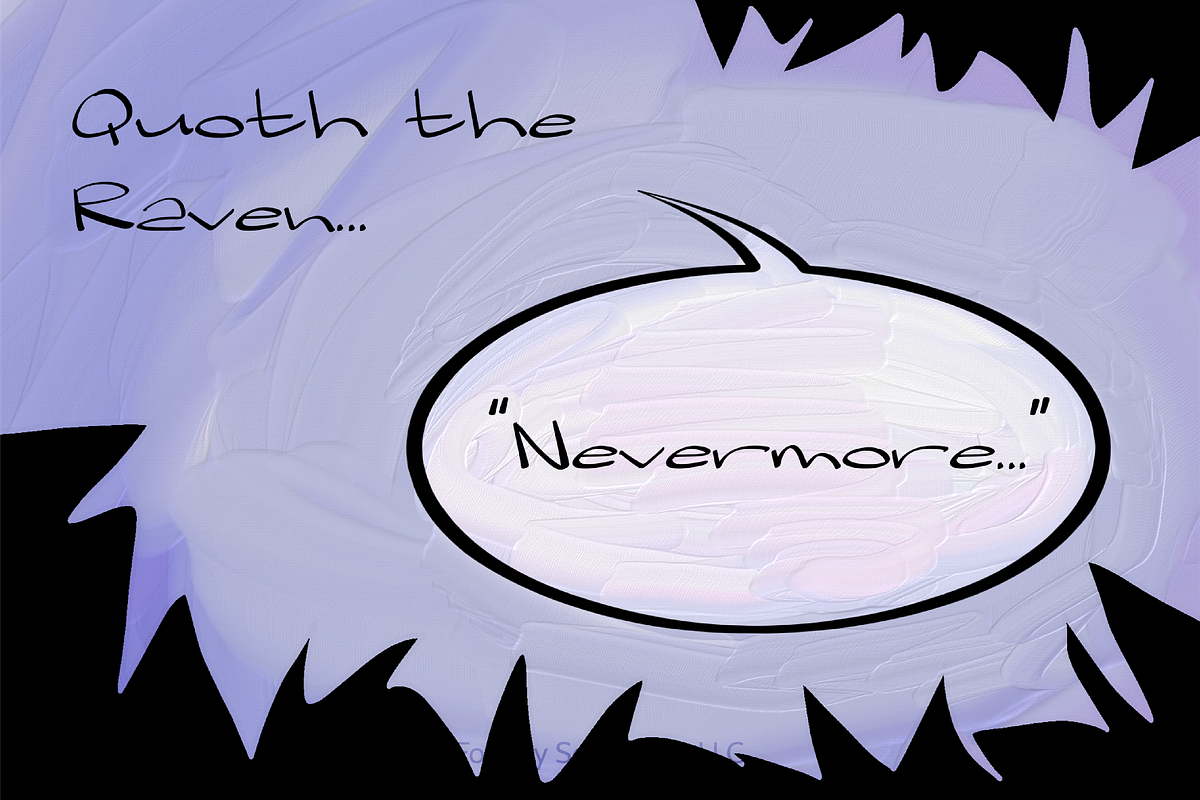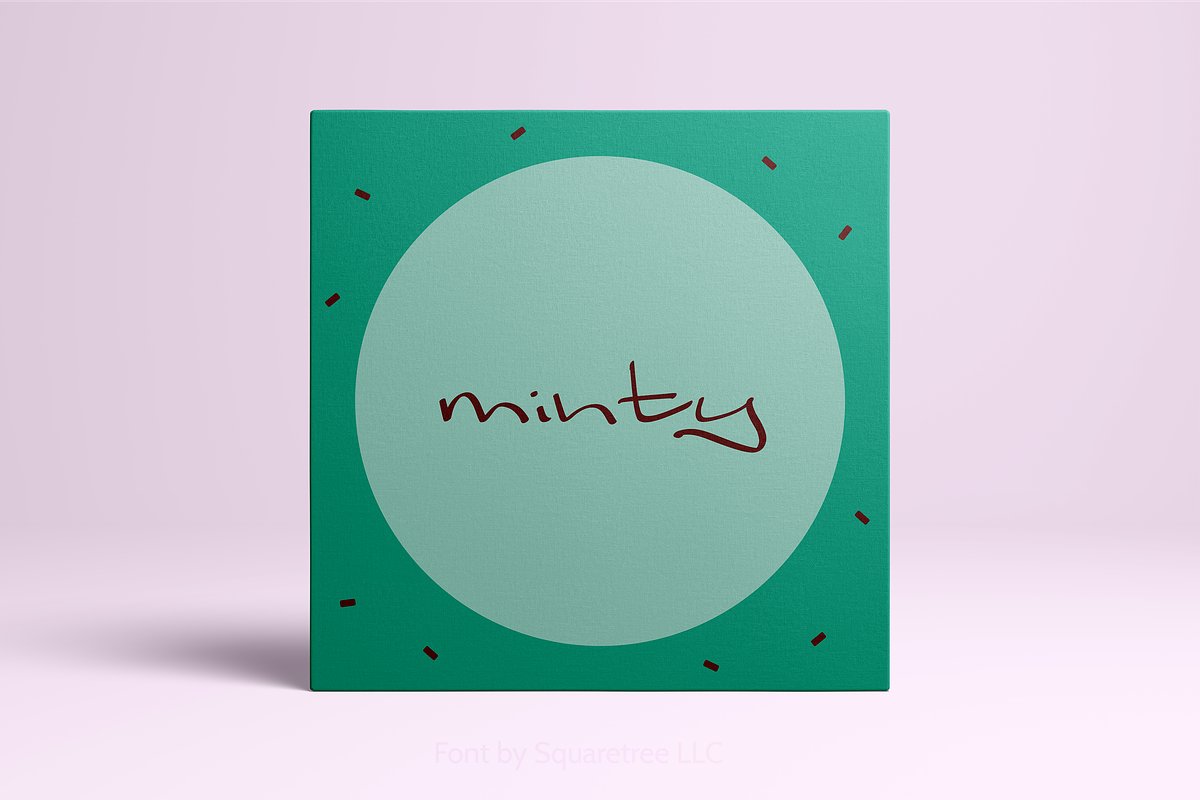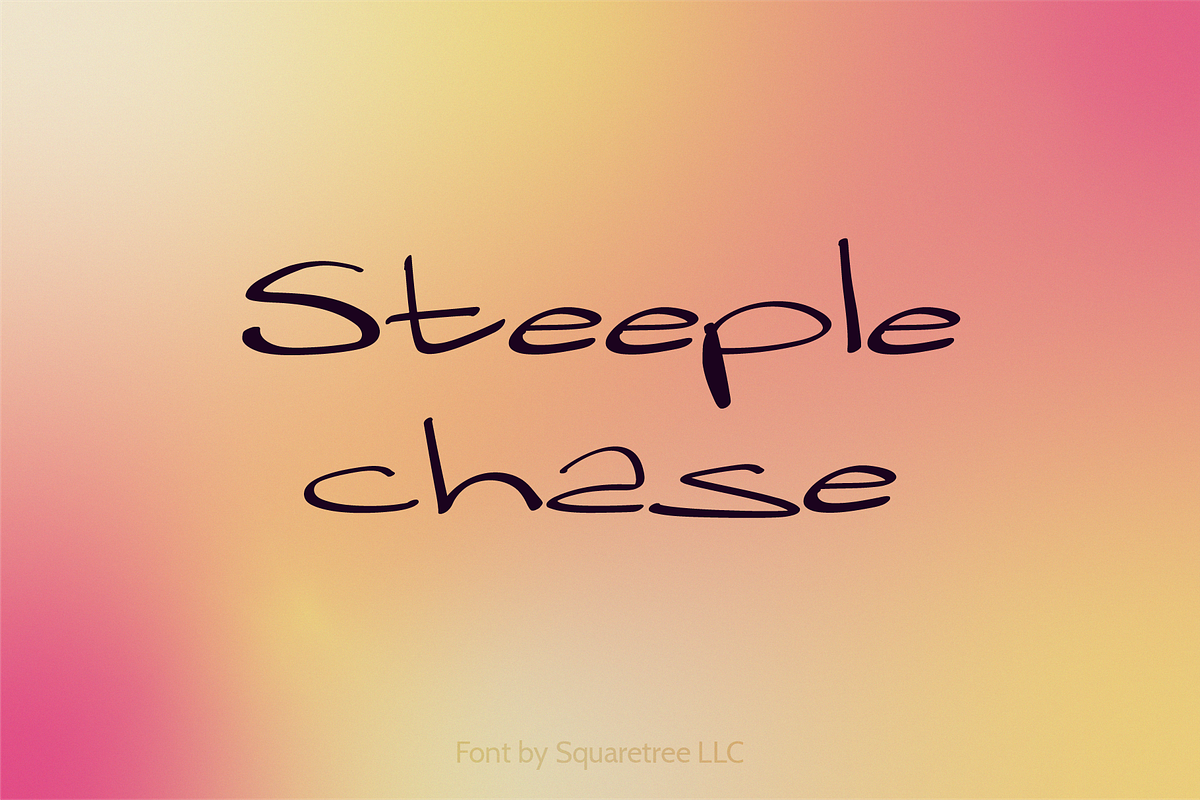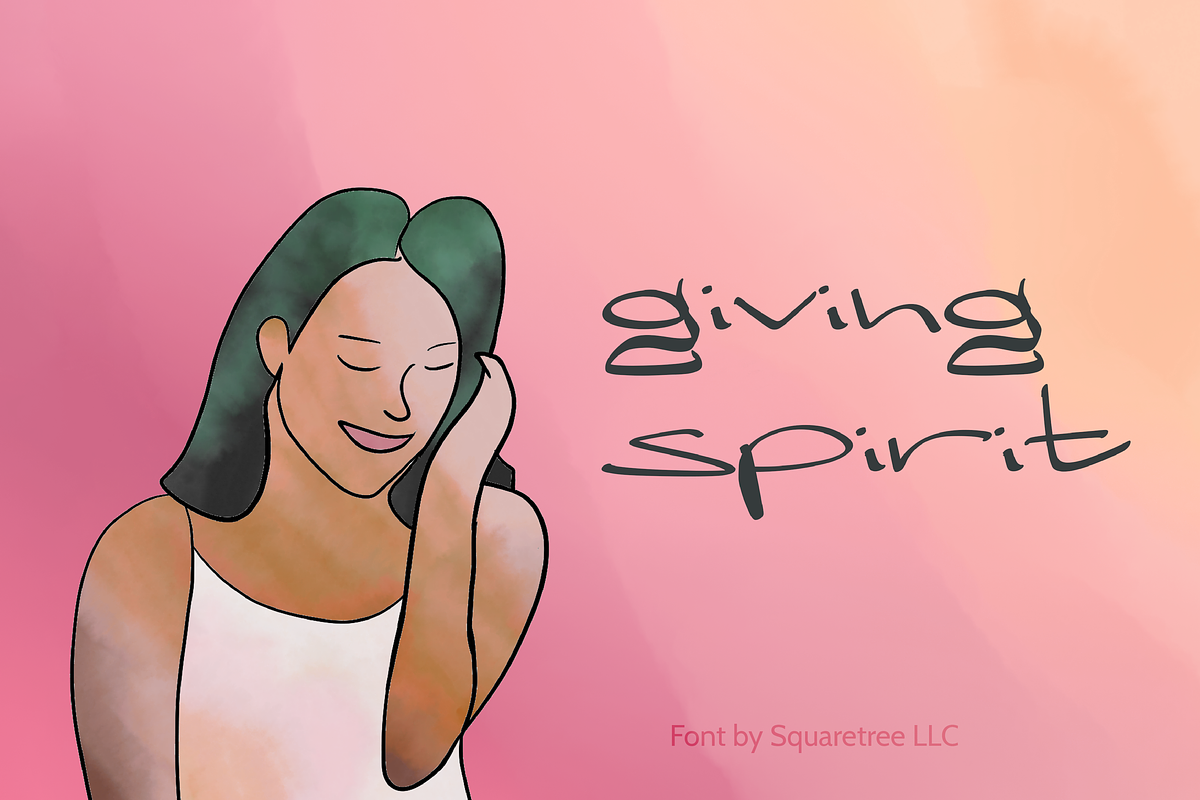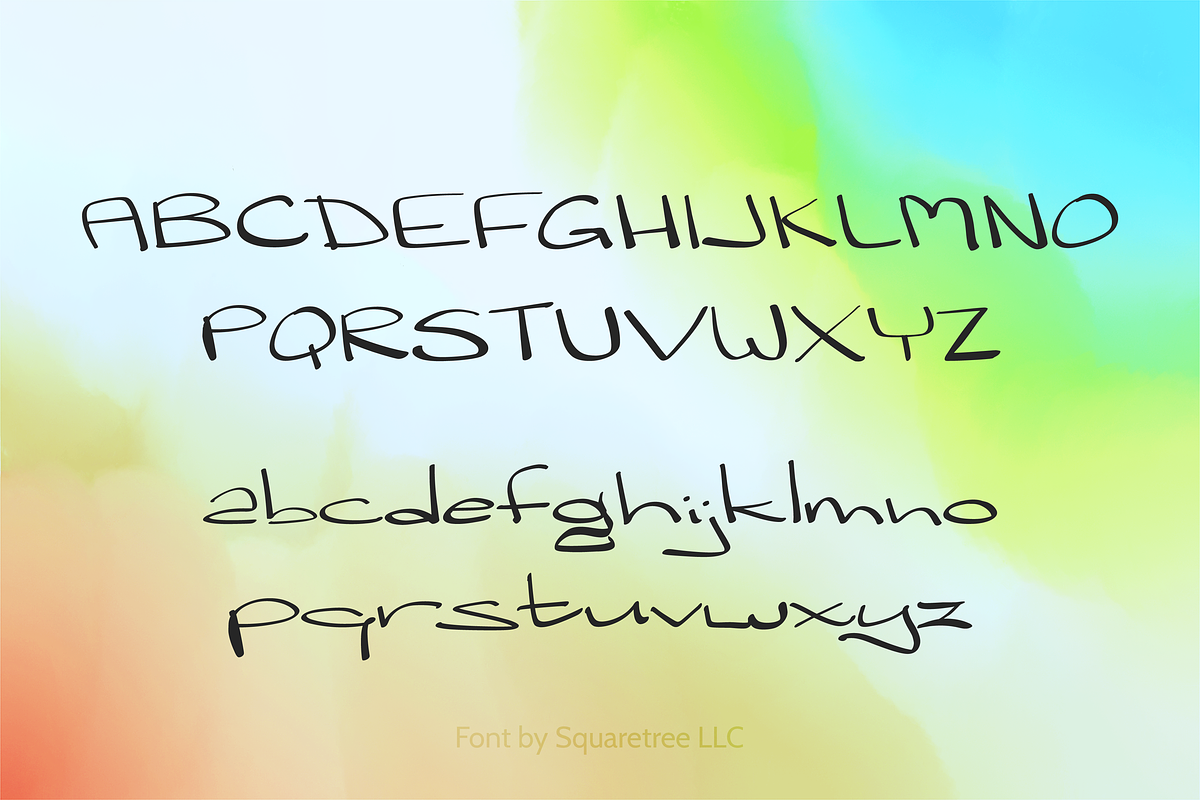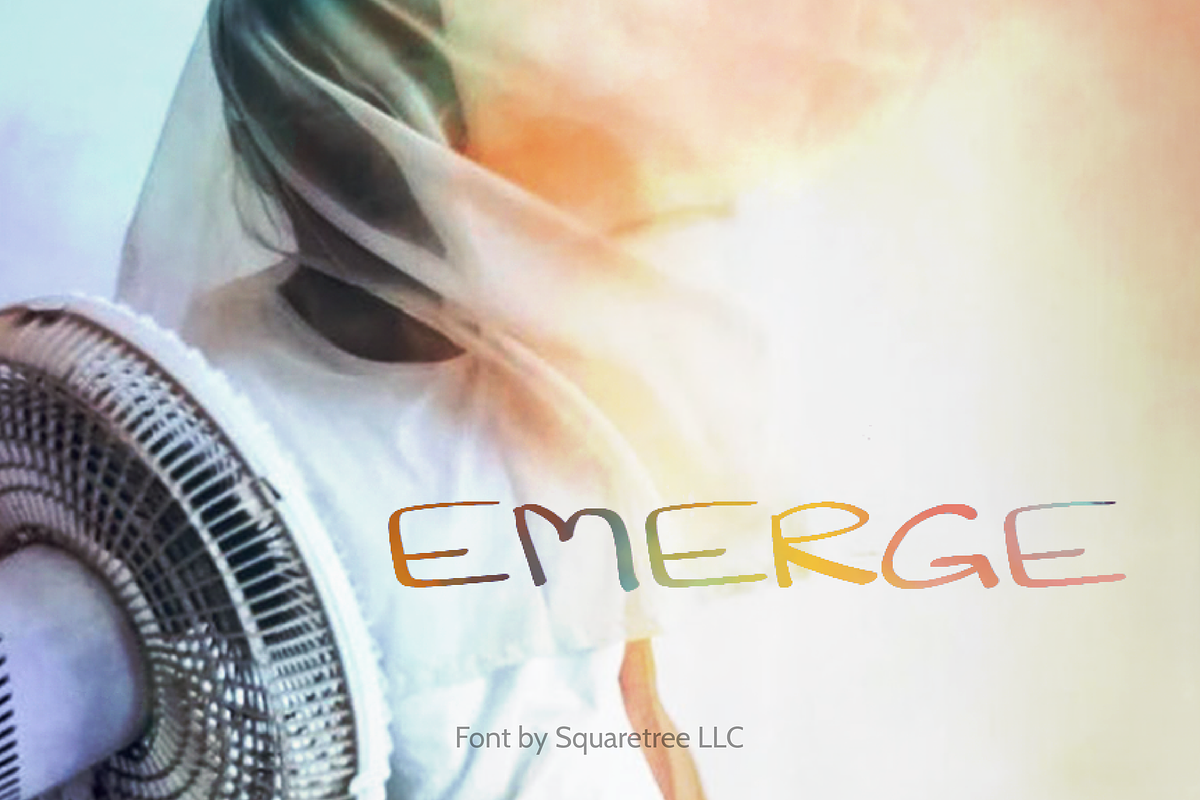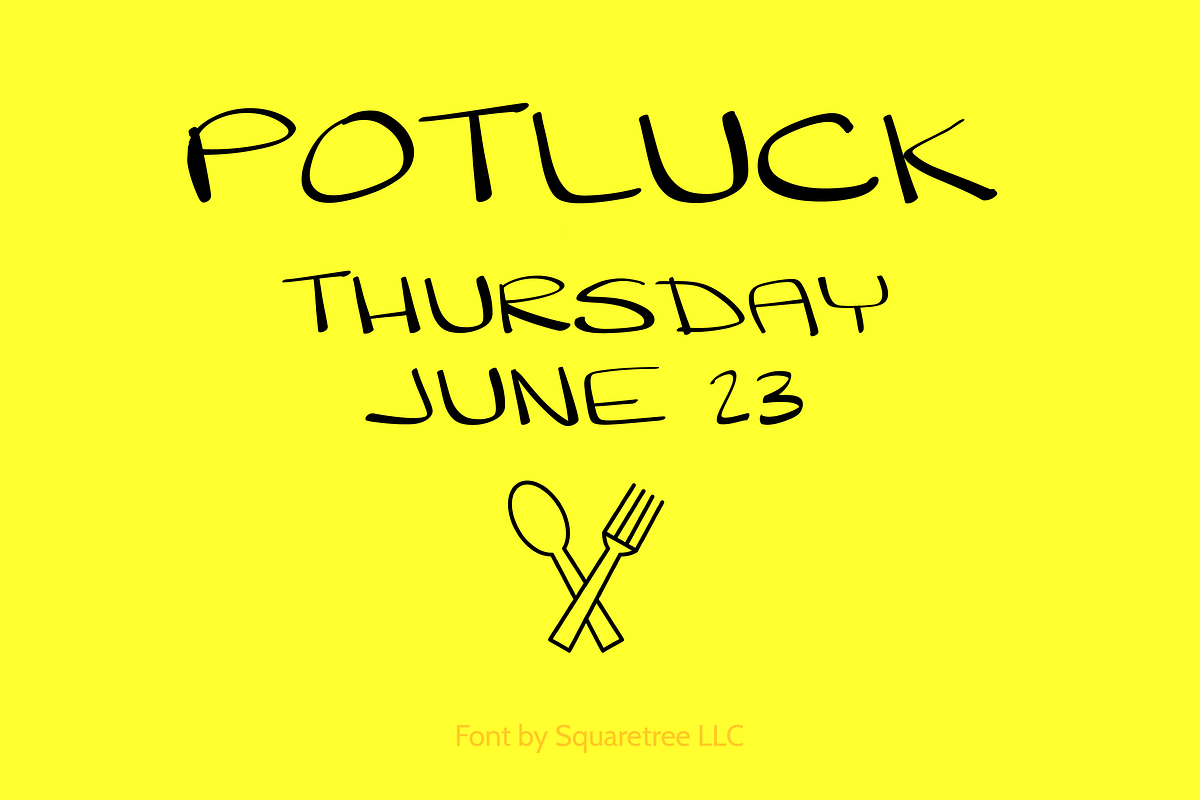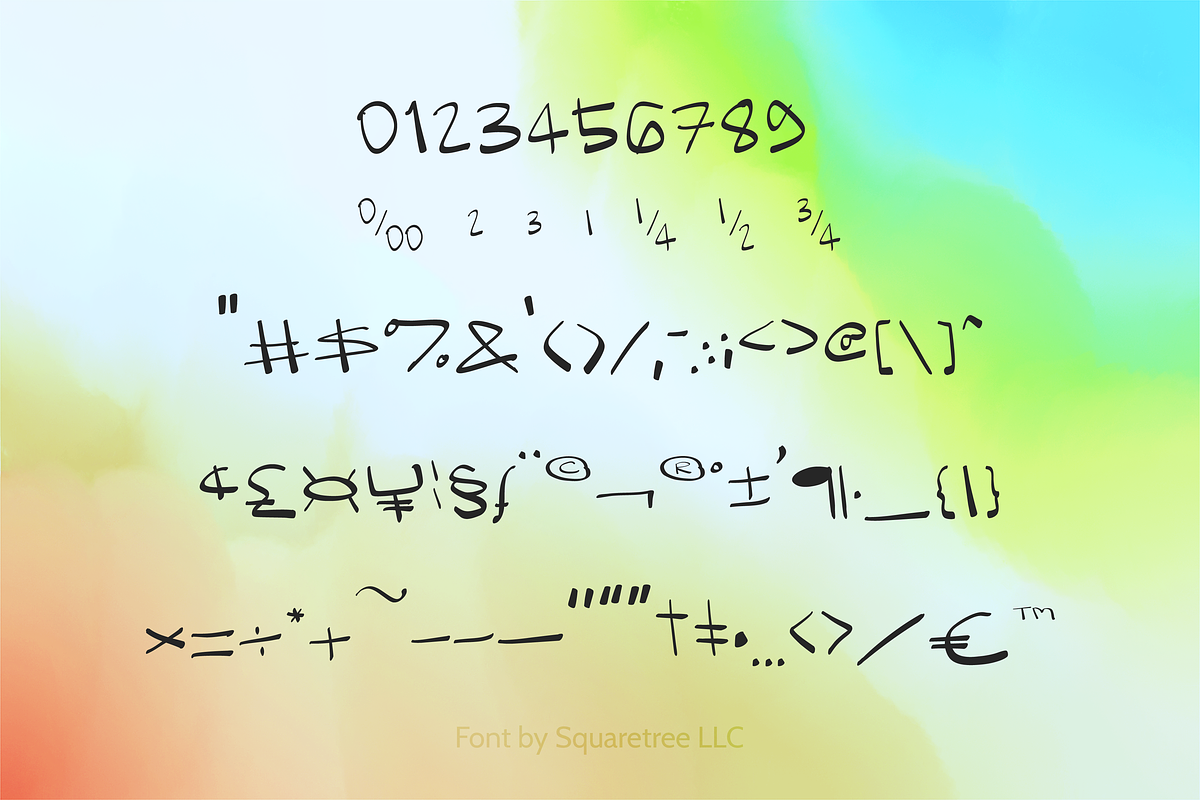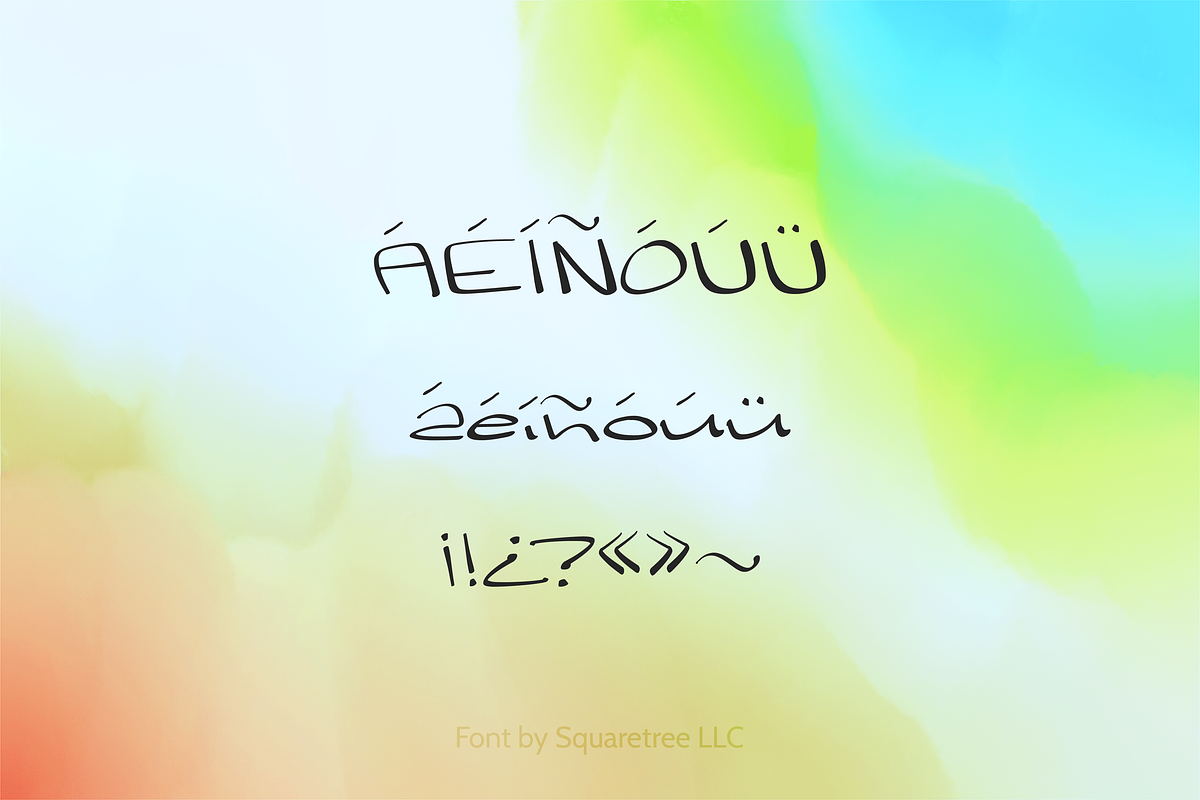
Steeplechase - Handwriting Font
Steeplechase is a hand-drawn font with an attitude! Low profile but energizing, it'll work carry bold statements to the world. Instill confidence, make your presence known, and add visual weight to the strength of your words. Try it out on greeting cards, posters and announcements.
Inspiration: "Steeplechase" is a horse riding obstacle race where the horse and rider have to keep moving quickly while covering ground at different heights.
You will get: a set of lowercase and uppercase letters, numerals and punctuation in two languages: Spanish and English.